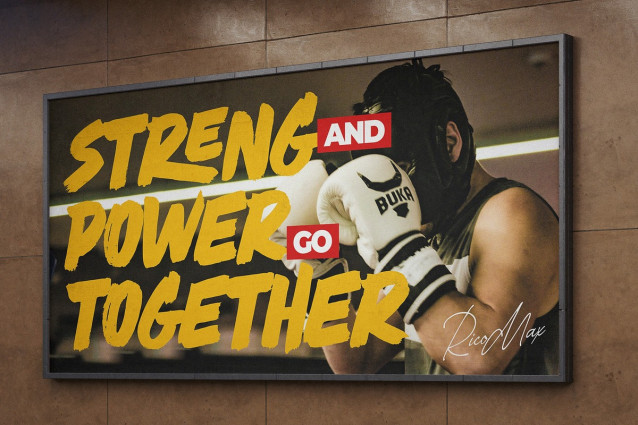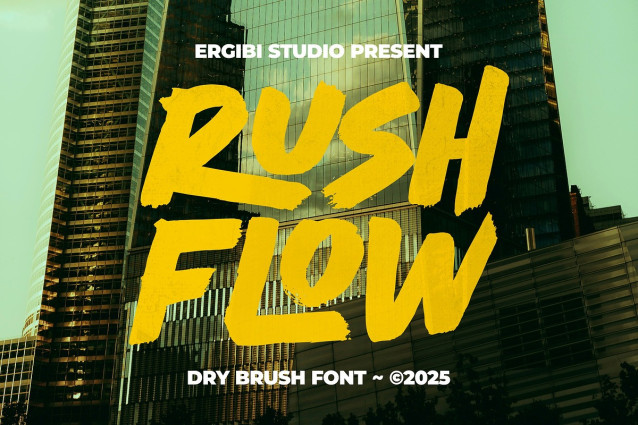
Rush Flow Font
Rush Flow Font is a dry brush font, adrenaline-charged typeface built with thick brush strokes and gritty character. Fully uppercase and unapologetically loud, it brings raw energy to your design. Whether for streetwear, posters, branding, quotes, or packaging, Rush Flow injects an urban attitude that commands attention. Each letter bursts with personality, making sure your message hits hard and stands out.